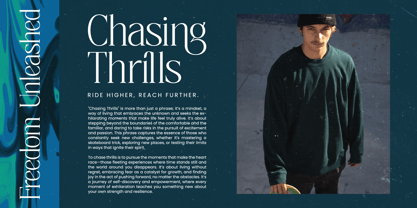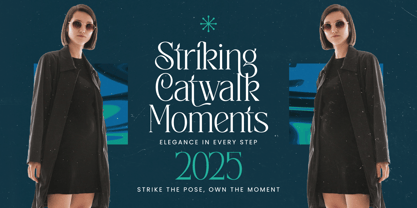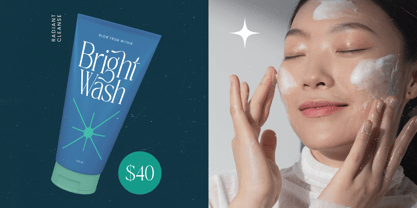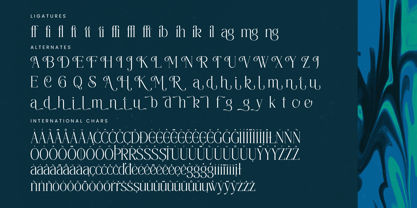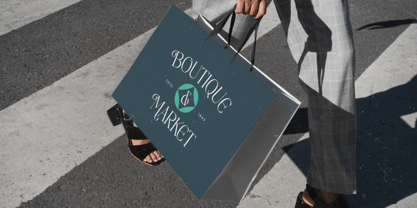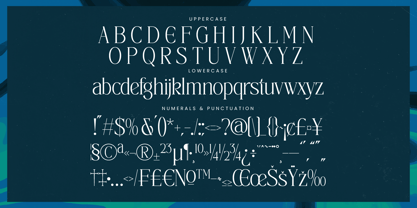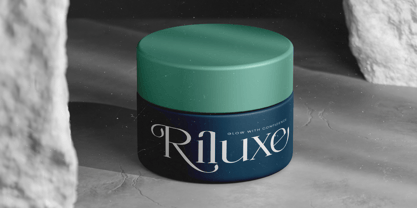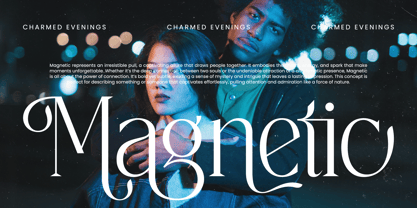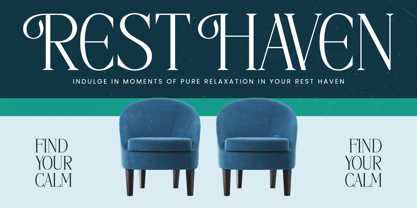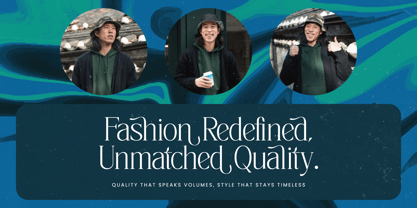
Painting Elegance
The Painting Elegance Font Family was designed by Heru Utama Putra and published by Timelesstype Studio. Painting Elegance contains 2 styles and family package options.
Painting Elegance - Tall Serif Display Font , from Timelesstype , Suitable for any projects such as: logos, branding projects, homeware designs, product packaging, mugs, quotes, posters, shopping bags, t-shirts, book covers, name card, invitation cards, greeting cards, label, photography, watermark, special events, and all your other luxury and beautiful projects that need a Luxury Serif taste.